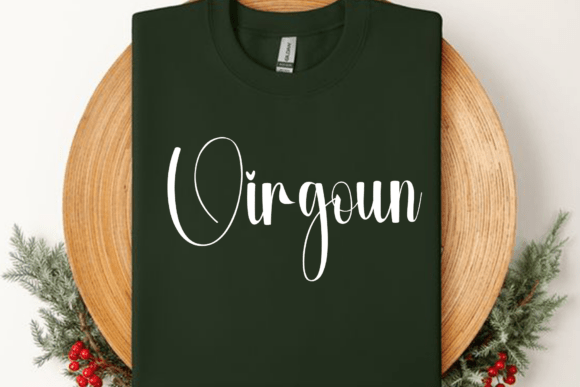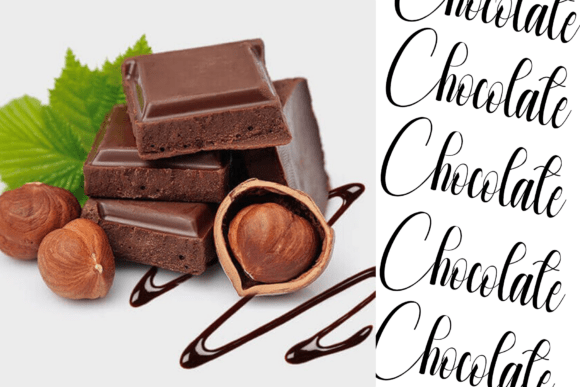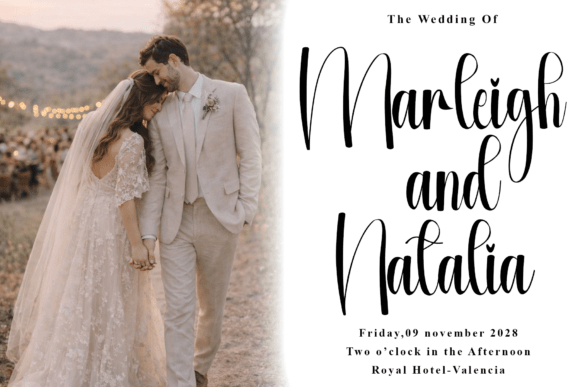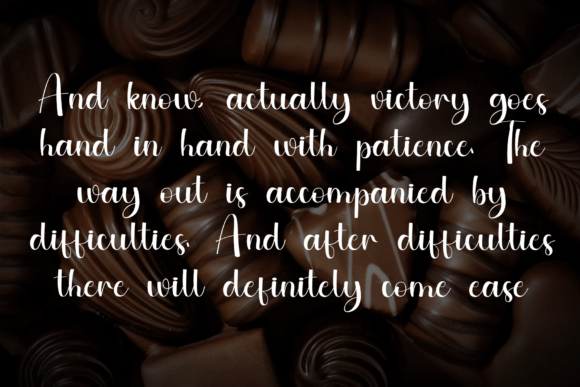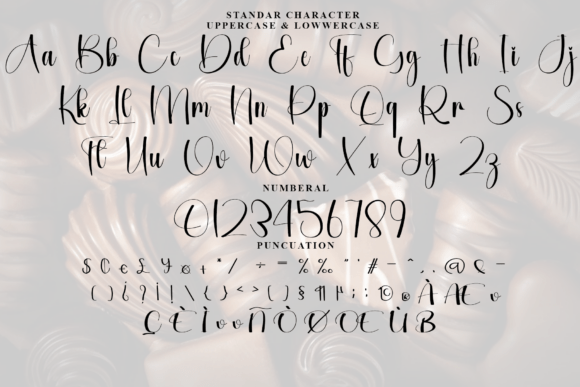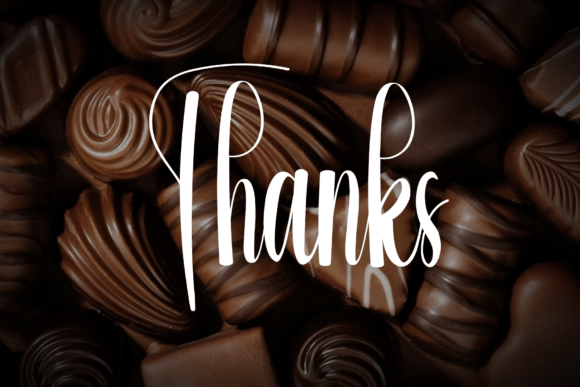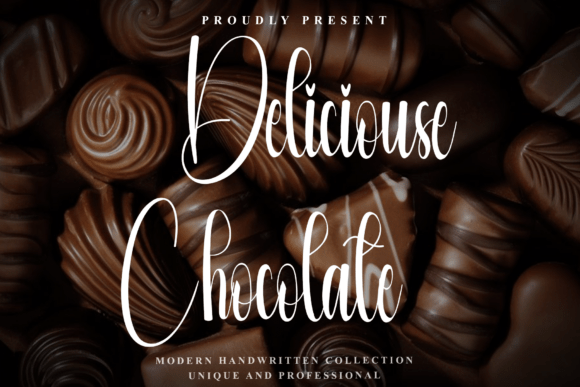
Introducing Deliciouse Chocolate Font: Elevate Your Designs with a Taste of Sophistication
Are you looking for a font that embodies the warmth and coziness of autumn? Do you want to add a touch of sophistication to your designs, whether it’s for seasonal marketing, packaging, or editorial headers? Look no further than Deliciouse Chocolate Font, a stunning script font that is sure to delight designers and crafters alike.
A Unique and Professional Autumnal Visual Voice
Deliciouse Chocolate Font is part of a modern handwritten collection that boasts a unique and professional autumnal visual voice. Its high-contrast strokes, thick downstrokes, and delicate hairline connectors evoke the feeling of luxury and refinement. This font is perfect for designers who want to create a sense of warmth and coziness in their designs, while also conveying a sense of sophistication and elegance.
Characteristics of Deliciouse Chocolate Font
So, what sets Deliciouse Chocolate Font apart from other fonts? Here are some of its key characteristics:
- High-contrast strokes: Deliciouse Chocolate Font features high-contrast strokes that give it a sense of drama and elegance. The thick, grounded downstrokes and delicate hairline connectors create a beautiful visual contrast that adds depth and interest to your designs.
- Vertically elongated letterforms: The letterforms in Deliciouse Chocolate Font are vertically elongated, which gives the font a sense of grandeur and sophistication. This is perfect for creating eye-catching headlines and titles that demand attention.
- Graceful, looping ascenders: The ascenders in Deliciouse Chocolate Font are long and looping, mimicking the fluid strokes of high-end inkwork. This adds a touch of elegance and refinement to your designs, making them perfect for luxury brands and high-end products.
Use Deliciouse Chocolate Font for a Variety of Design Projects
Deliciouse Chocolate Font is a versatile font that can be used for a wide range of design projects, including:
- Seasonal autumn marketing: Create eye-catching advertisements and promotional materials that capture the warmth and coziness of autumn. Perfect for seasonal campaigns, holiday promotions, and limited-time offers.
- Artisanal food packaging: Add a touch of sophistication to your food packaging with Deliciouse Chocolate Font. Perfect for gourmet food products, specialty teas, and artisanal chocolates.
- Boutique event invitations: Create elegant and refined invitations for weddings, parties, and other special events. Deliciouse Chocolate Font is perfect for formal events that require a touch of luxury and sophistication.
- Sophisticated editorial headers: Use Deliciouse Chocolate Font to create stunning editorial headers that add a touch of elegance to your publications. Perfect for fashion magazines, lifestyle blogs, and upscale publications.
Why Choose Deliciouse Chocolate Font?
So, why should you choose Deliciouse Chocolate Font for your design projects? Here are just a few reasons:
- Unique and professional: Deliciouse Chocolate Font is a one-of-a-kind font that will set your designs apart from the rest. Its unique and professional aesthetic makes it perfect for designers who want to create sophisticated and elegant designs.
- High-quality design: Deliciouse Chocolate Font is designed with high-quality craftsmanship in mind. Its intricate details and elegant strokes make it a joy to use and a pleasure to behold.
- Versatile: Deliciouse Chocolate Font can be used for a wide range of design projects, from seasonal marketing to editorial headers. Its versatility makes it a valuable addition to any designer’s font library.
In conclusion, Deliciouse Chocolate Font is a sophisticated and rhythmic script font that embodies a unique and professional autumnal visual voice. Its high-contrast strokes, thick downstrokes, and delicate hairline connectors make it perfect for designers who want to create elegant and refined designs. Whether you’re working on seasonal marketing campaigns, artisanal food packaging, boutique event invitations, or sophisticated editorial headers, Deliciouse Chocolate Font is the perfect choice.